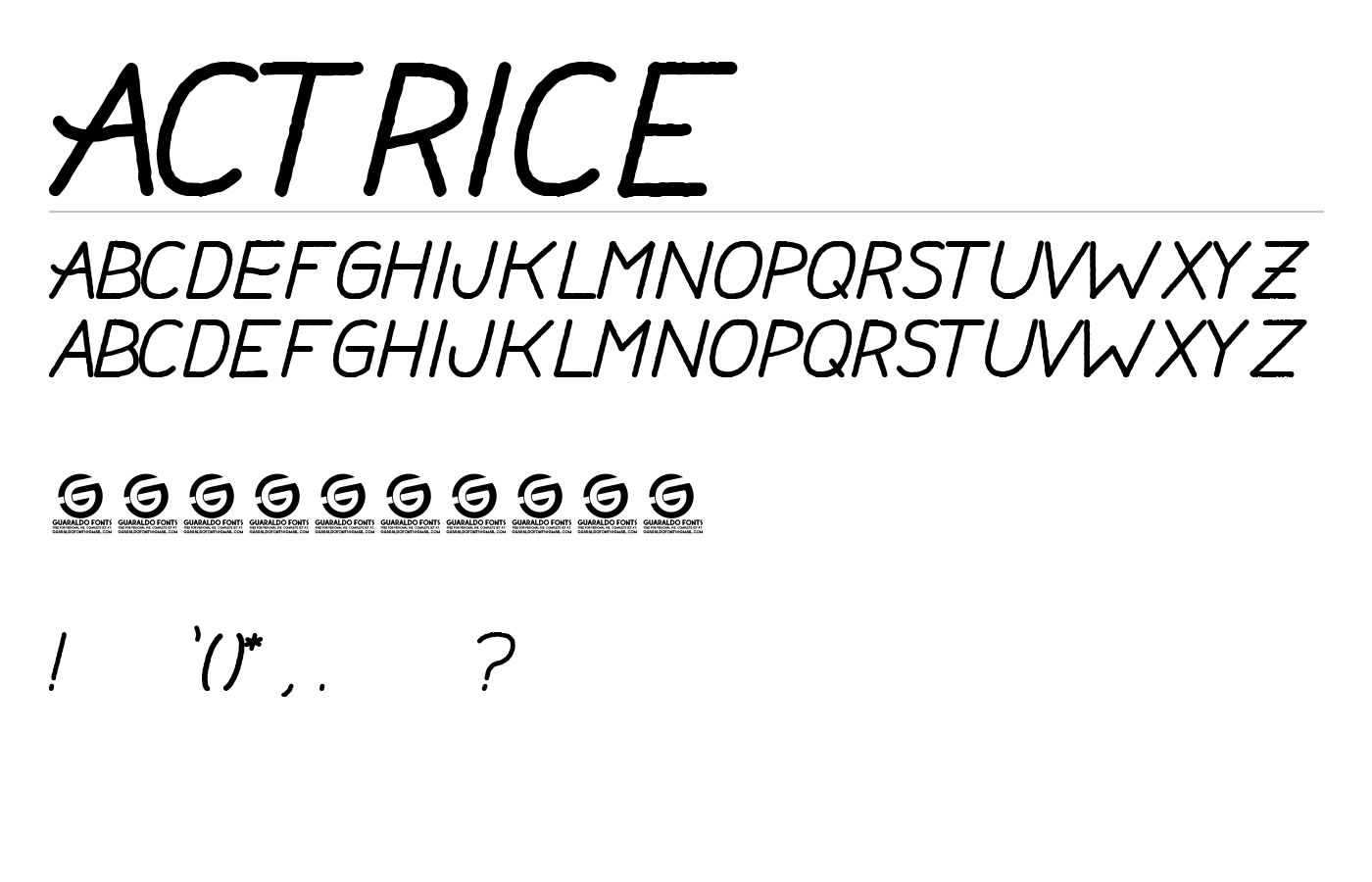
Actrice is a casual, handwritten sans serif font with a light weight and narrow width that gives it a friendly and informal feel. Its slightly irregular and rounded strokes mimic natural handwriting, making it perfect for playful and creative designs such as personal branding, invitations, or casual editorial layouts. This font works best where a warm, approachable touch is desired, adding personality without sacrificing readability.
Actrice Font
About Actrice Font
| Font family | Actrice Font |
| Designer | Mathias Guaraldo |